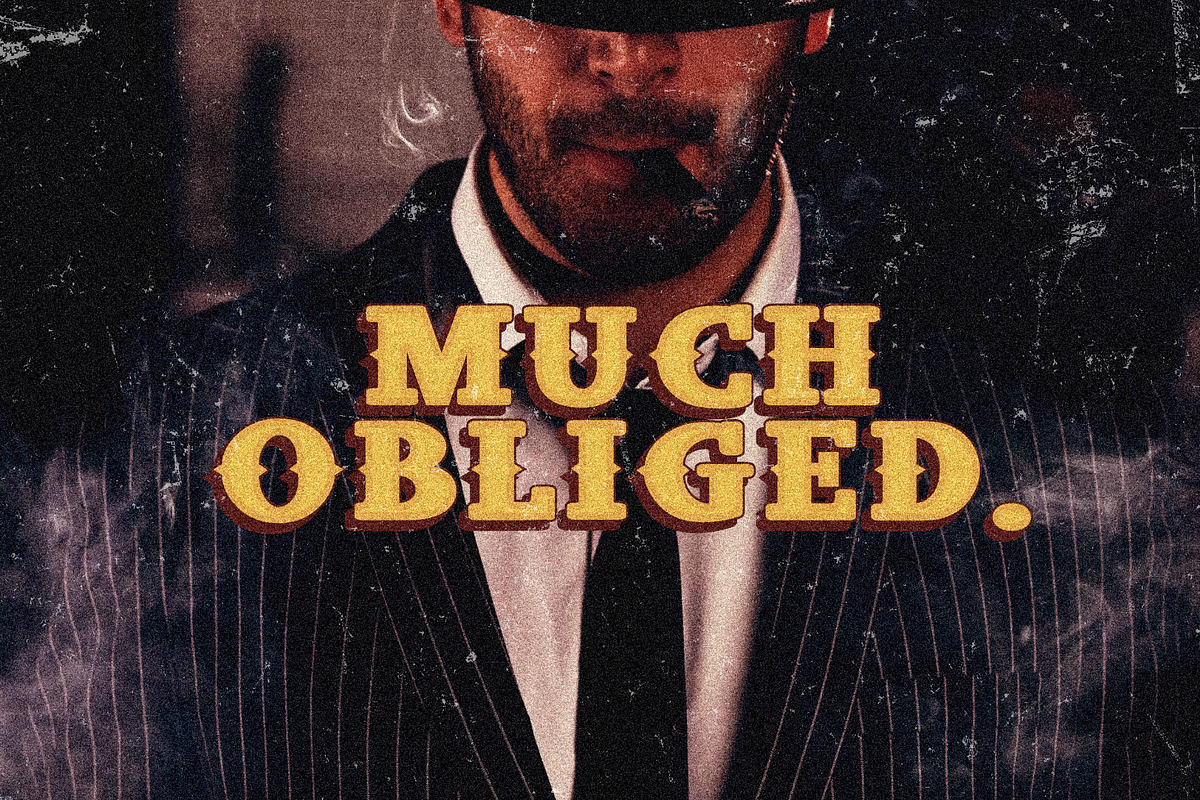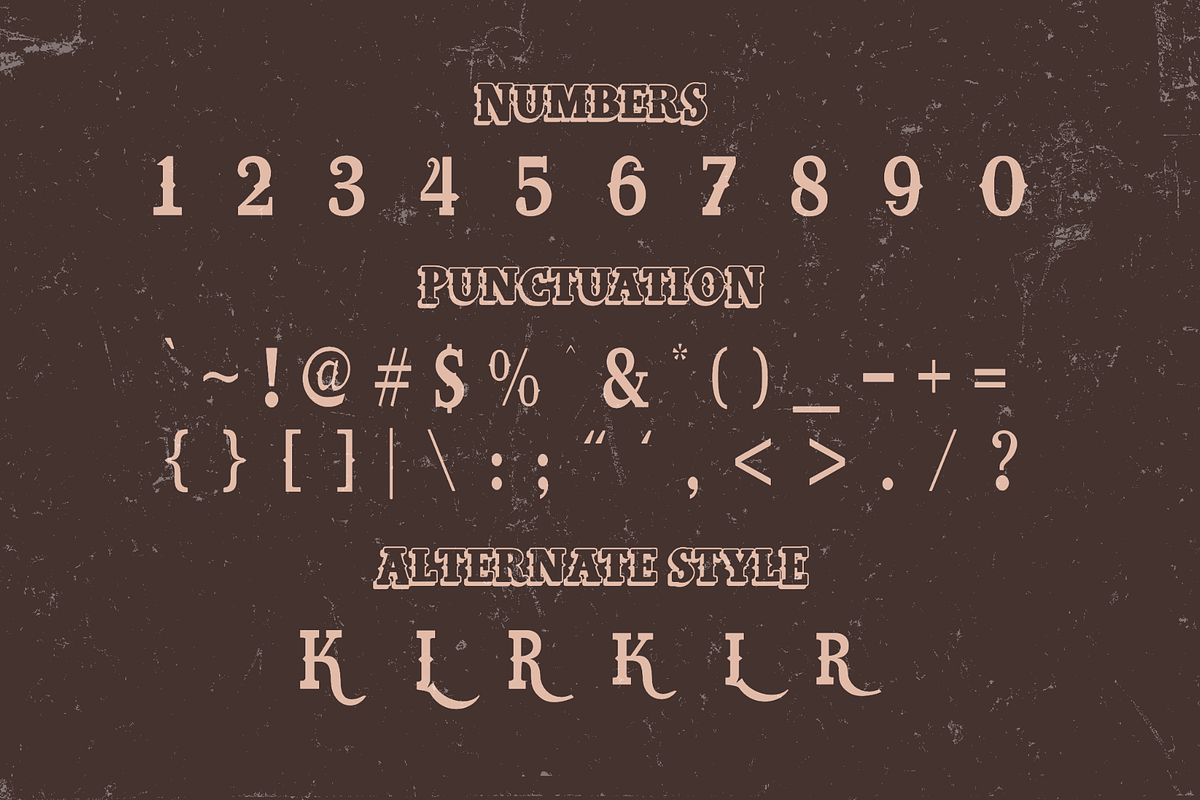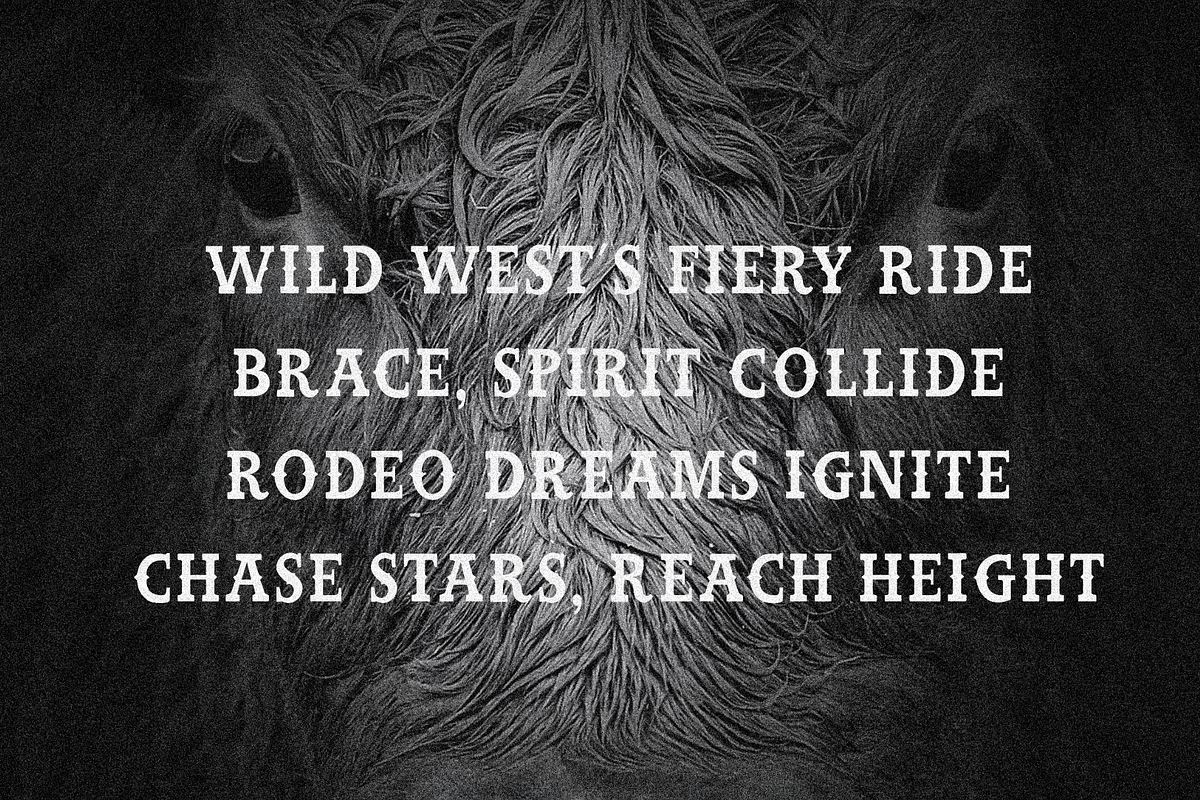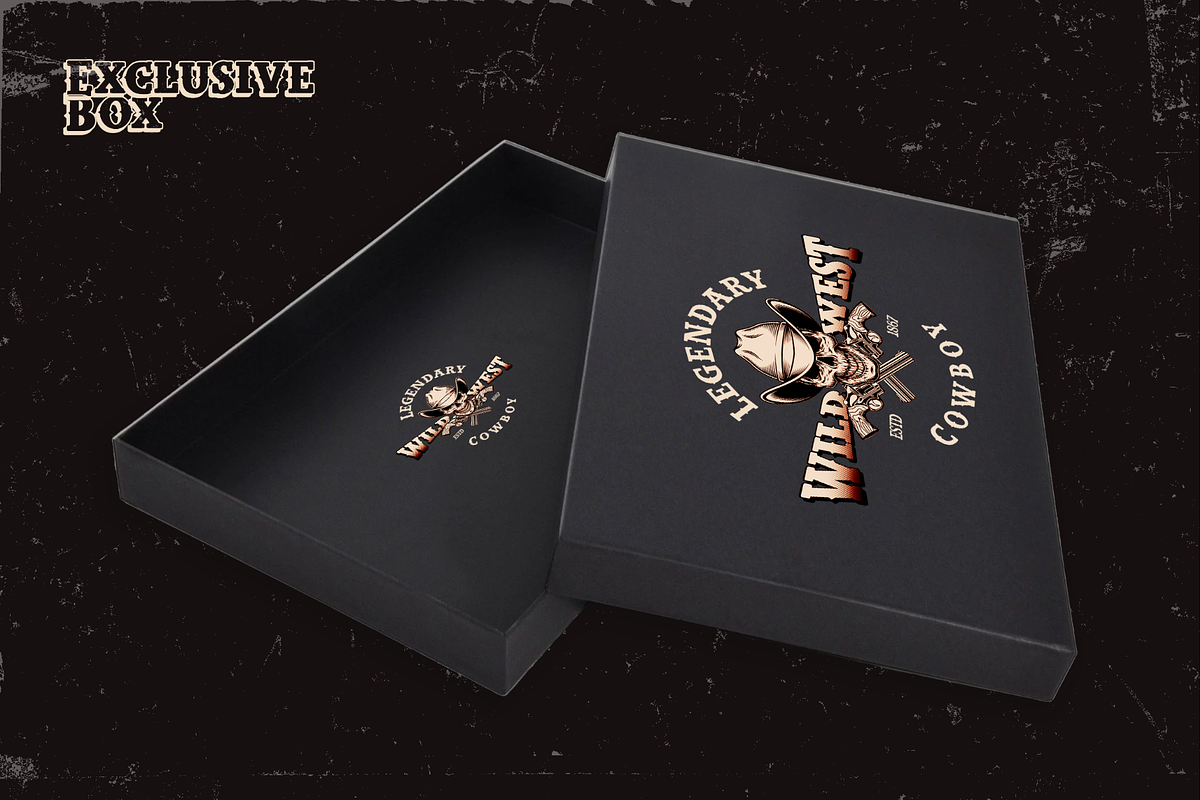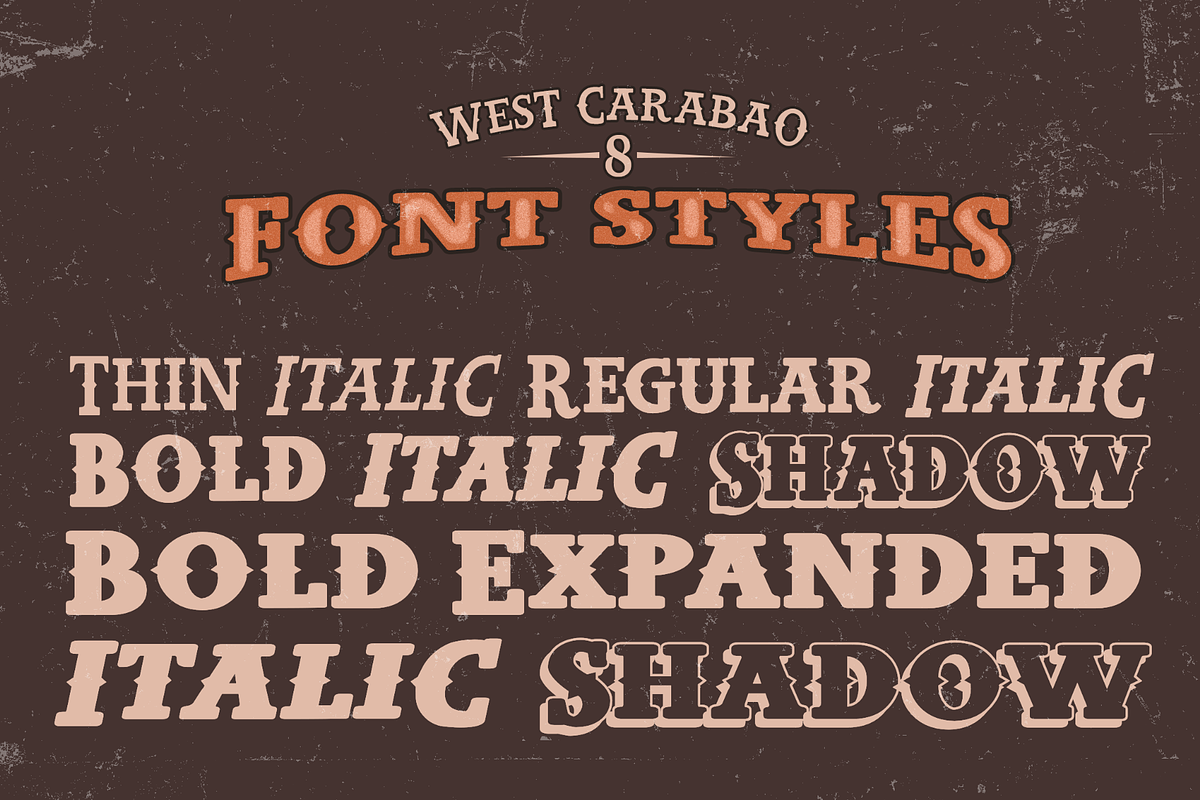
West Carabao | Western Slab Font
Introducing West Carabao, a versatile vintage font that effortlessly blends modern and old-school aesthetics. With a range of styles from thin to bold, including italics and a captivating shadow effect, this font offers creative freedom for various design projects. Its multilingual support makes it a global choice. Perfect for posters, marketing materials, titles, T-shirt designs, games, art, and more. Elevate your projects with the timeless charm of West Carabao.